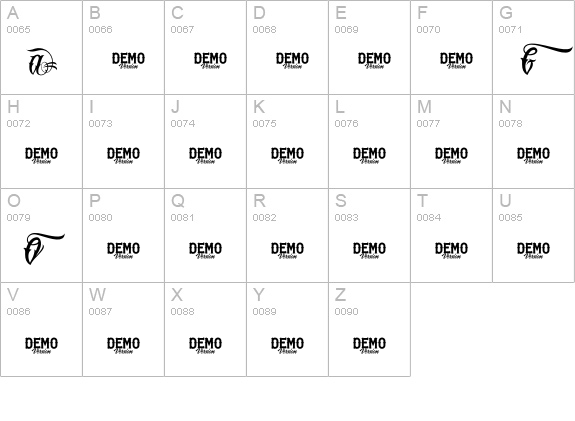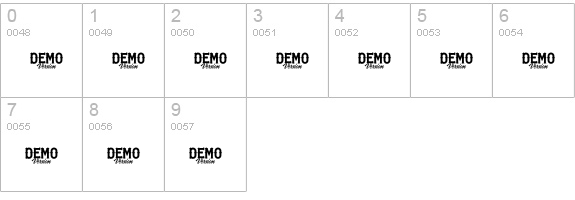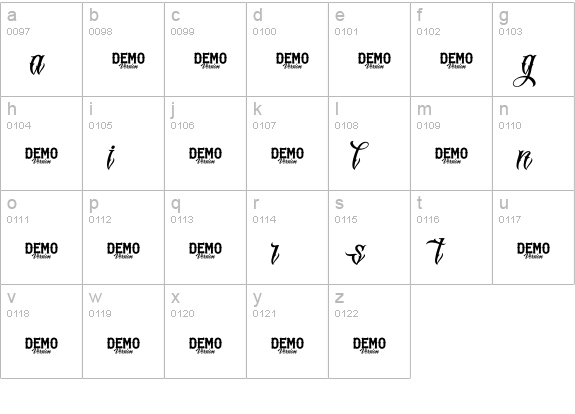
Introducing Original GangstA font - a bold and dynamic typeface that exudes an aura of urban style and raw authenticity. This one-of-a-kind font pays homage to the gritty streets and rebellious spirit of the original gangsta culture. With its strong and commanding letterforms, Original GangstA instantly captures attention and demands respect. What sets Original GangstA font apart is not only its striking design but also the fact that it is available to download for free at FontsMarket.com. Yes, you heard it right - this incredible font can be yours without spending a dime! FontsMarket.com, the trusted destination for high-quality fonts, offers this unique opportunity to effortlessly enhance your creative projects with the edgy and impactful vibe that Original GangstA font brings. Whether you're working on a poster for a hip-hop concert, designing a logo for a streetwear brand, or creating eye-catching social media graphics, Original GangstA font is the perfect choice to make a bold statement. Its distinctive characters, characterized by sharp angles and strong lines, embody the essence of urban culture, making it an ideal typographic companion for projects that need an infusion of attitude and street cred. The versatility of Original GangstA font is another aspect that makes it a standout choice. From headlines and titles to body text and captions, this font adapts effortlessly to different sizes and contexts, ensuring that your message always comes across loud and clear. With its seamless legibility and attention-grabbing aesthetics, Original GangstA font is sure to leave a lasting impression on your audience. So why wait? Don't miss out on the opportunity to enhance your designs with the captivating power of Original GangstA font. Head over to FontsMarket.com today and download this remarkable font for free. Unleash your creativity and let the authentic spirit of the streets come alive in your projects with Original GangstA font.